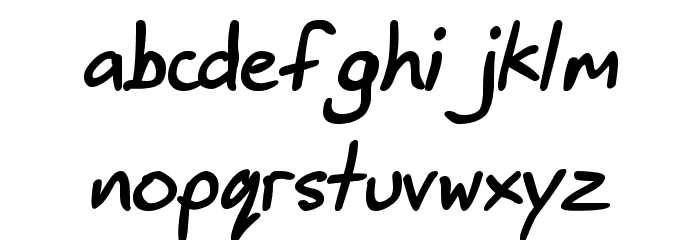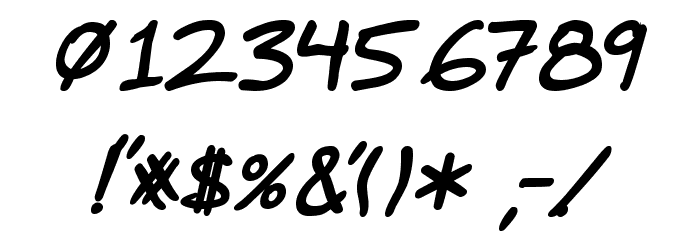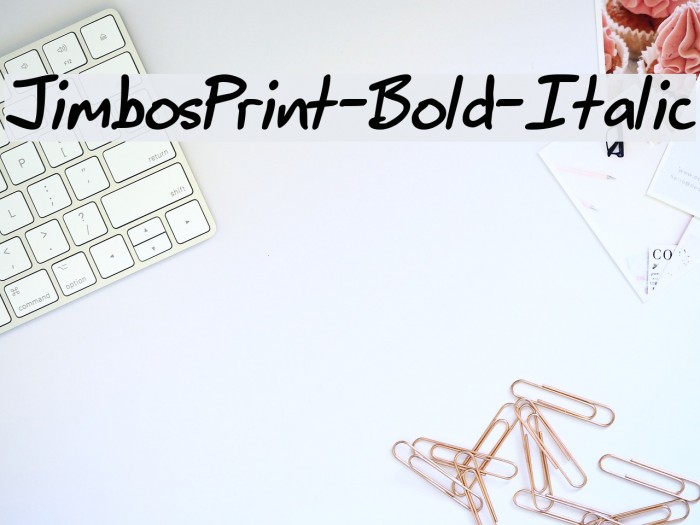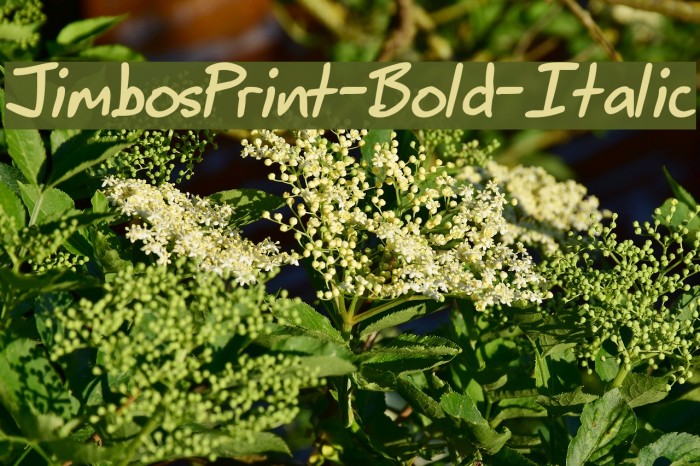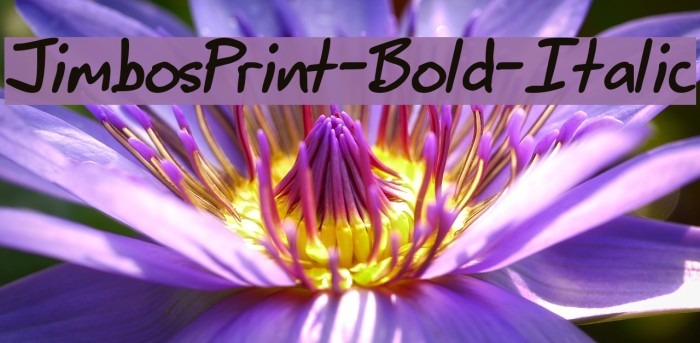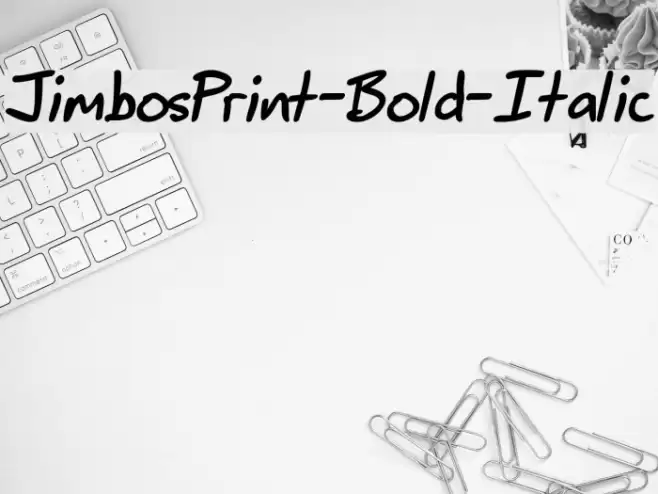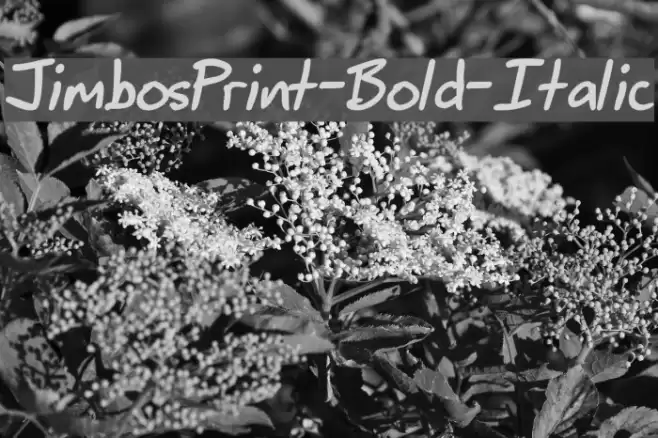
JimbosPrint-Bold-Italic Font
This font features a bold and italicized handwritten style, characterized by its fluid and dynamic strokes. The letters have a casual and informal appearance, with a slight slant that adds to the overall energetic feel. The uppercase and lowercase letters are well-balanced, maintaining a consistent flow throughout. Numbers and special characters are designed to match the playful nature of the alphabet, making it suitable for creative and expressive projects. The font's unique style is both eye-catching and versatile, perfect for adding a personal touch to any design.
A bold, italicized handwritten font with dynamic and fluid strokes.
- Proposed Projects: Ideal for greeting cards, invitations, personal branding, and creative posters.
- Category: Handwritten
- Use Case: Logos, Headlines, Creative projects